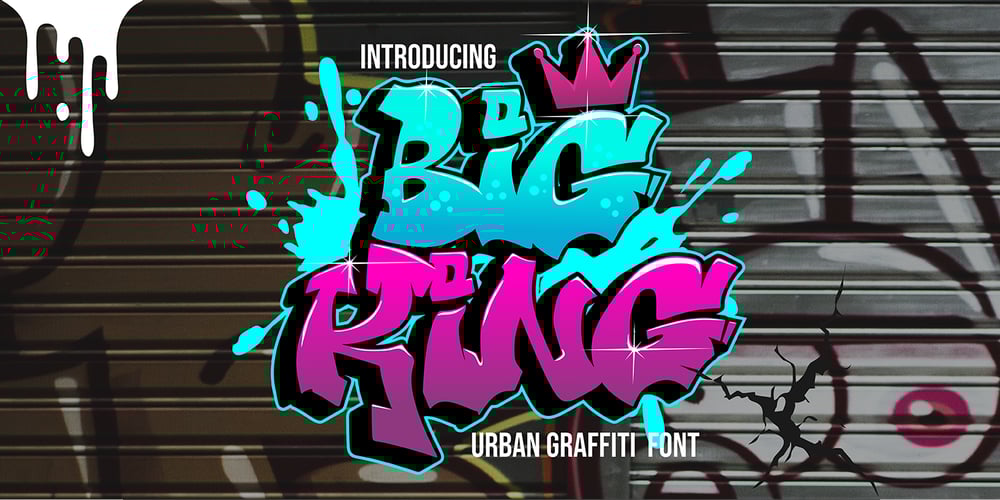
Big King Graffiti
Big King Graffiti font
Big King Graffiti Font Family was designed by Sipanji and published by Sipanji21. Big King Graffiti contains 1 styles and family package options. Big King is a spectacular Display font with a Fatty and Thick graffiti style for your design look awesome. It will elevate a wide range of design projects to the highest level, be it branding, headings, wedding designs, invitations, signatures, logotype, wall art illustration, apparel, labels, and much more!